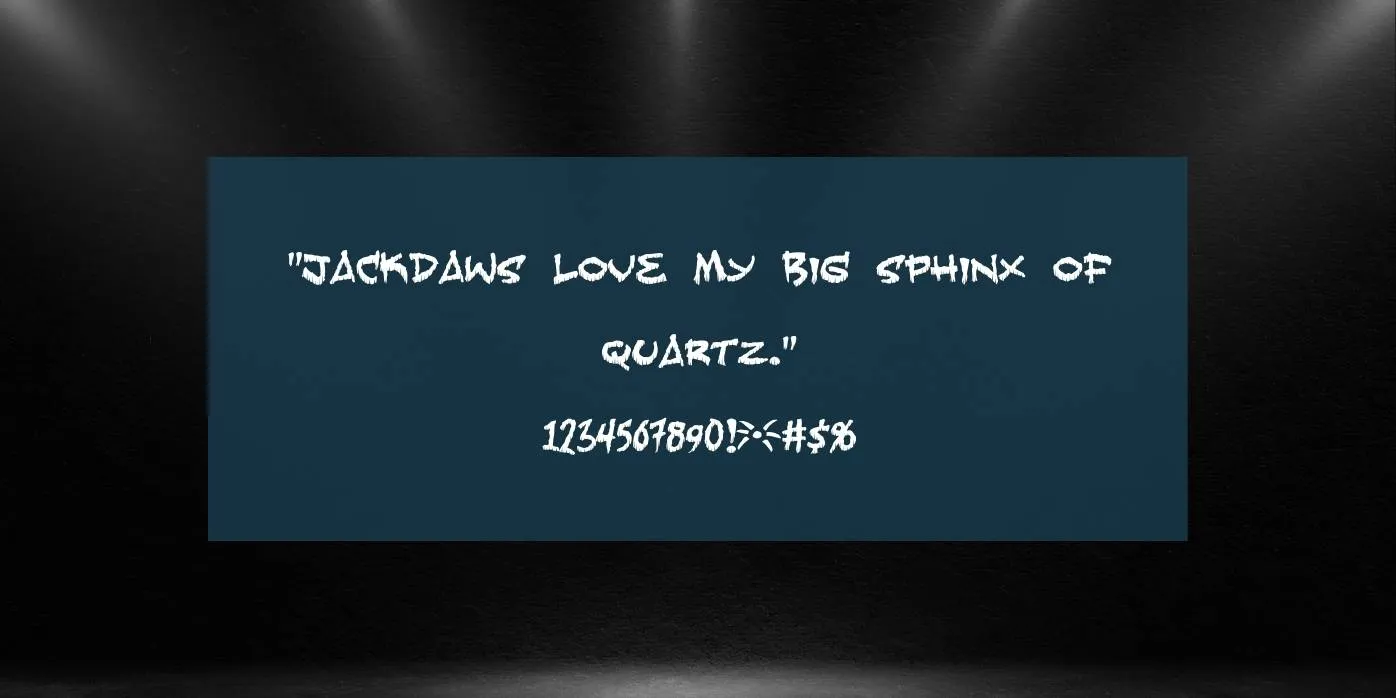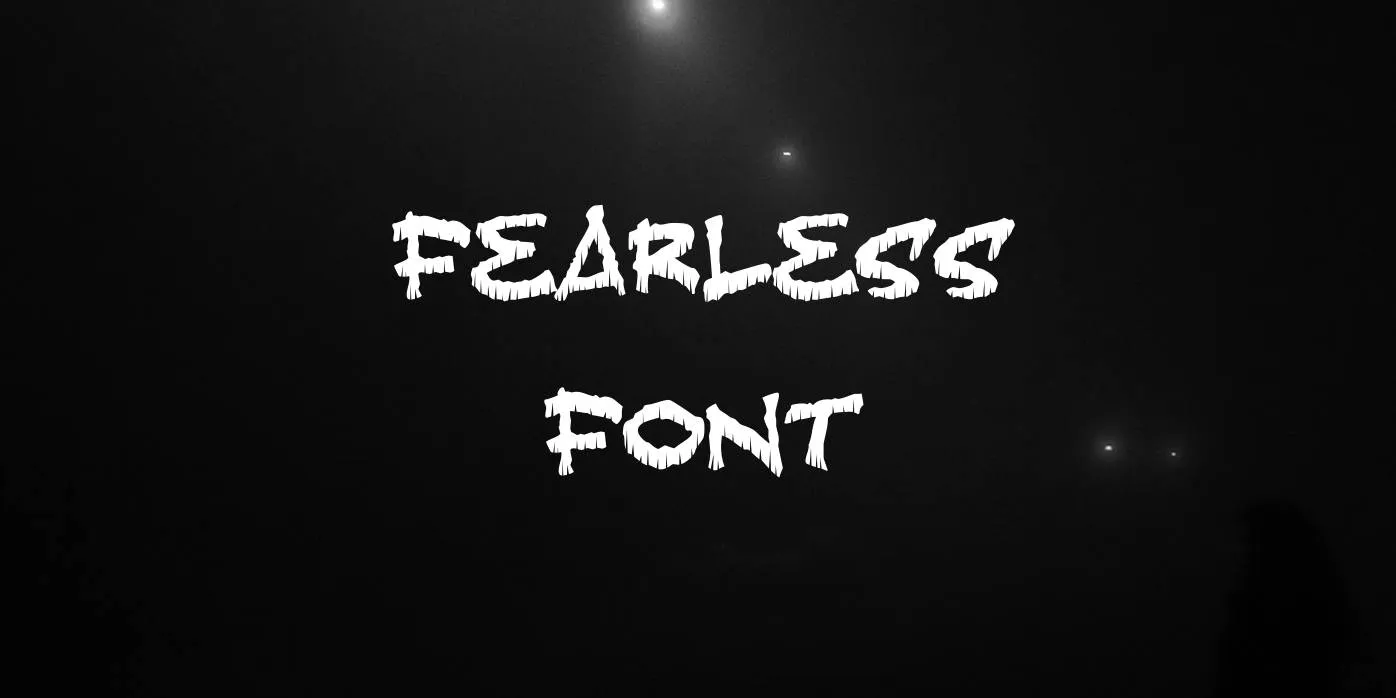
Fearless Font
Fearless Font belongs to the fancy font family that was designed by Pizzadude. The designer took the time to create each letter carefully, with unique details that make this font stand out. It is well suitable for CSS and HTML. Fearless Font is perfect for personal use, and it can be used for any project that requires a touch of elegance.
This classy typeface is available in two unique styles: regular and italic. Each style possesses its own set of ligatures, which makes this font even more versatile. You can also utilize its similar lucy font for more advanced designs. This amazing font also supports multiple languages, so it can be used by people all over the world.